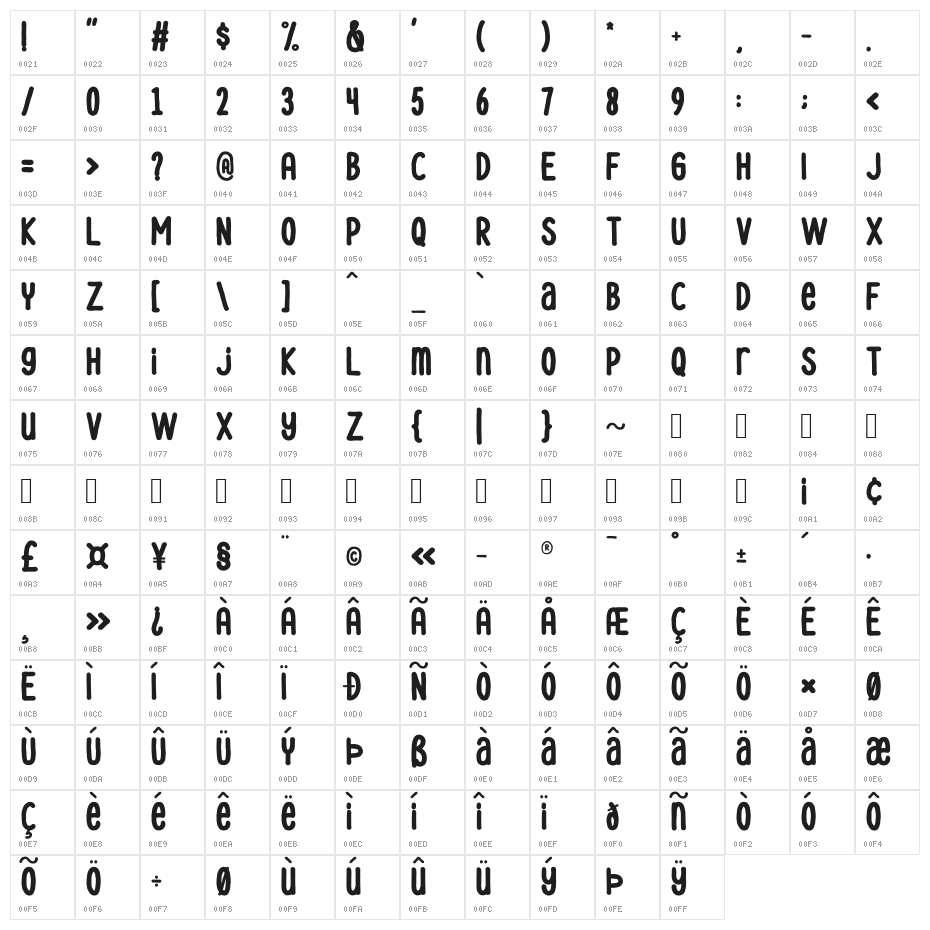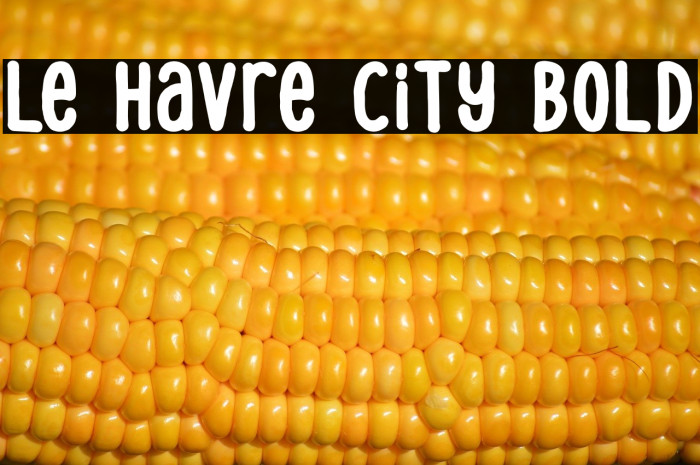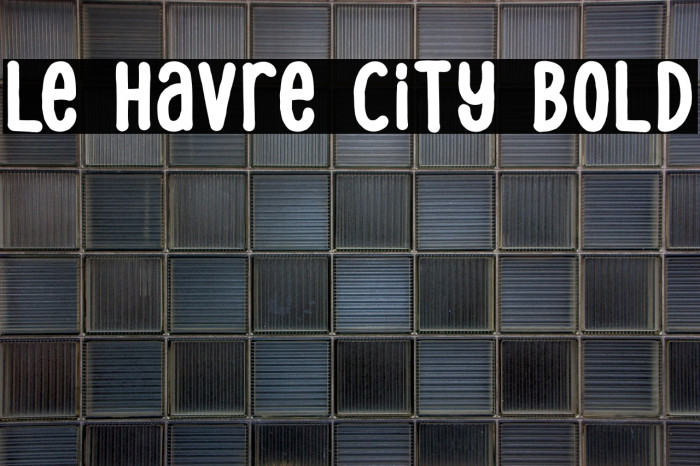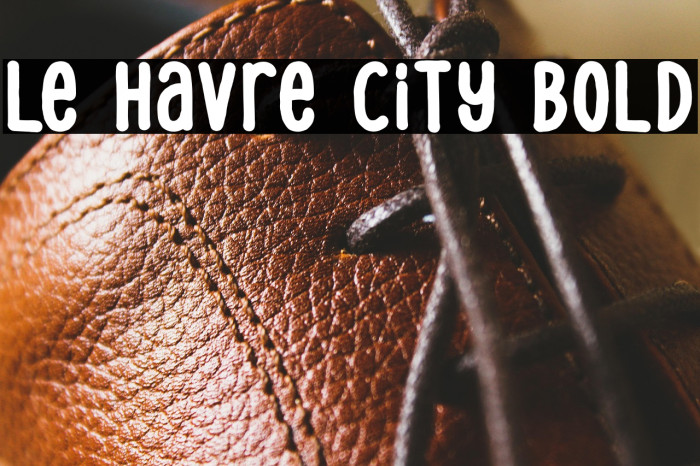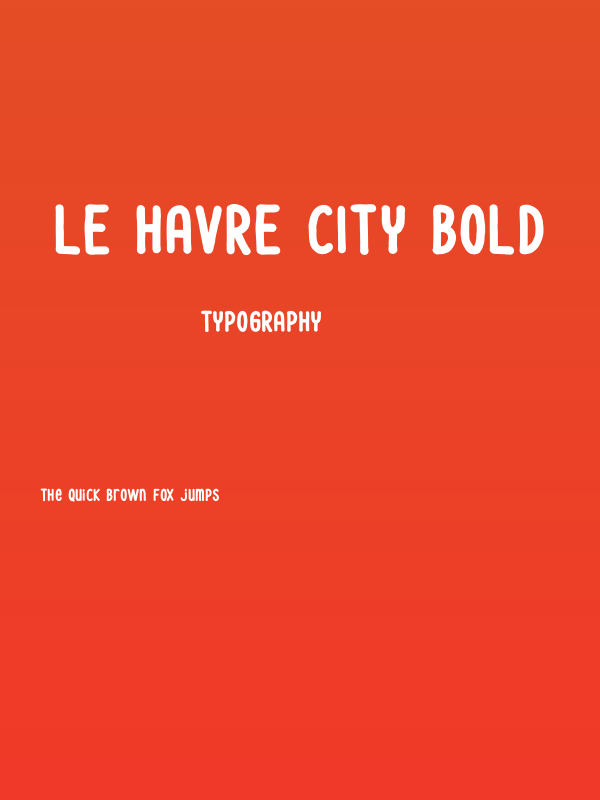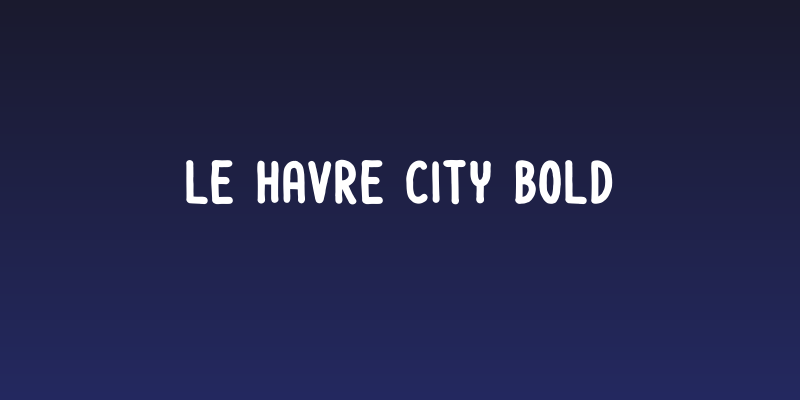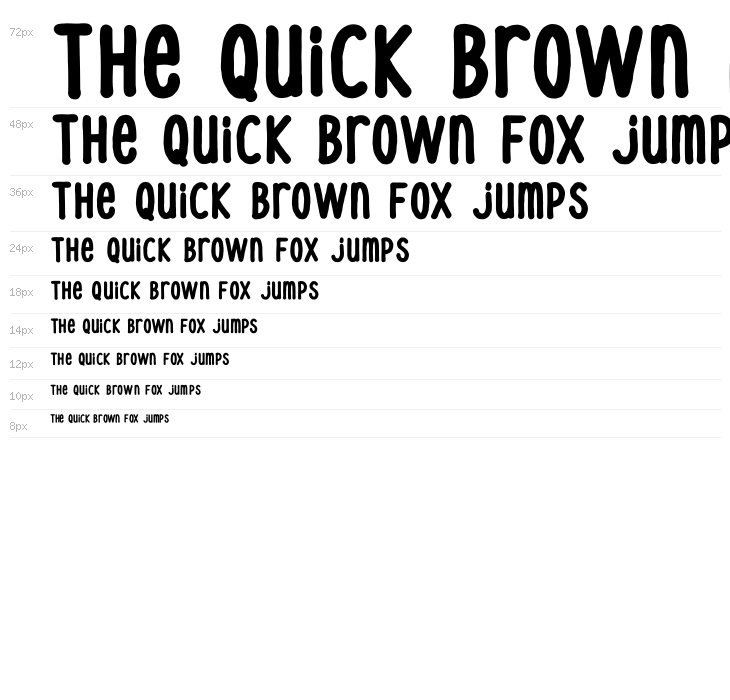
Le Havre City Bold Font
Le Havre City Bold Description
This font features a bold and playful design with rounded edges and a hand-drawn aesthetic. The characters are thick and uniform, giving a sense of stability and friendliness. The uppercase and lowercase letters maintain a consistent style, with slightly exaggerated curves that add a whimsical touch. Numbers and special characters follow the same design principles, ensuring a cohesive look across all elements. The overall appearance is approachable and informal, making it suitable for projects that require a fun and engaging typeface.
| Proposed Projects | Ideal for children's books, playful branding, posters, and casual invitations. |